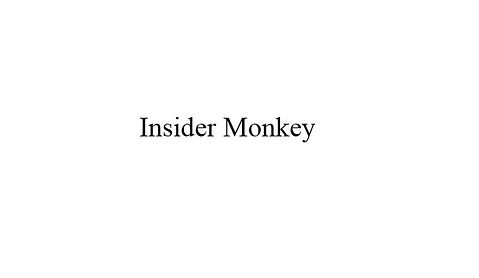
7 Best Fonts to Use on Your Resume
6. Times New Roman
There’s a love-hate relationship regarding Times New Roman. Some people love using it; others are so sick and tired of seeing it that it might as well rate next to Comic Sans as far as popularity goes. Furthermore, there’s a really big chance that everyone else will be using Times New Roman, which could make it a good idea to follow the trend if you’re looking for a more… conservative job. If you’re looking for a creative job, for instance, then you’re better off with other options.